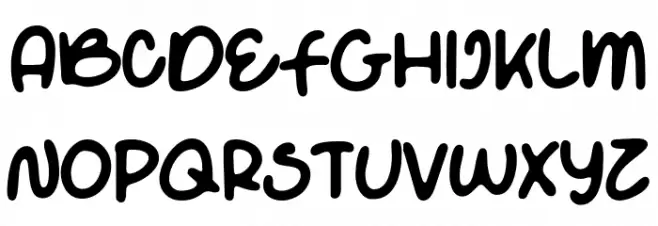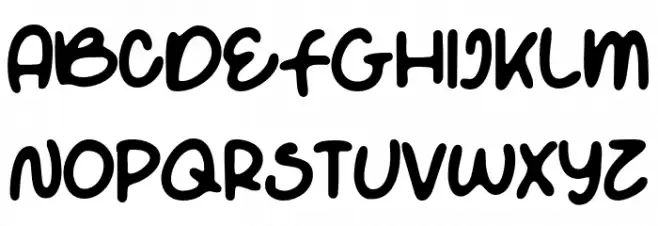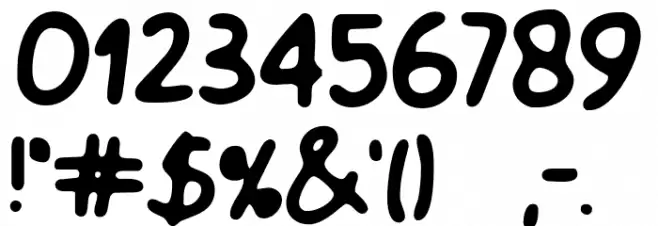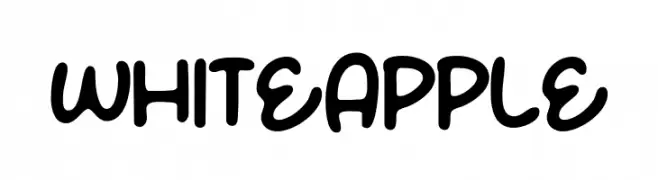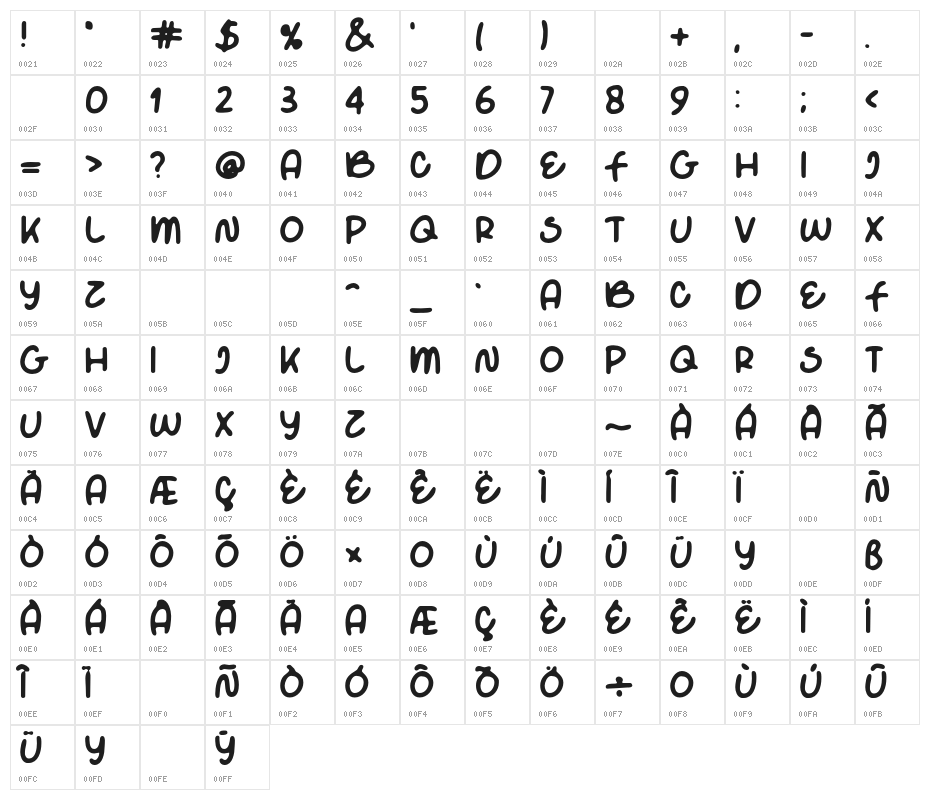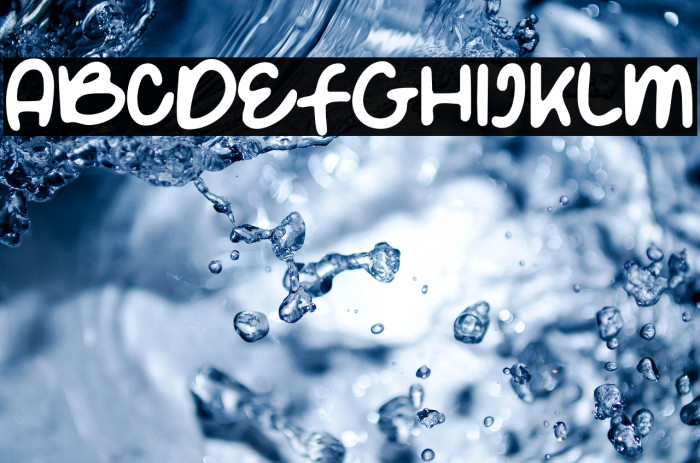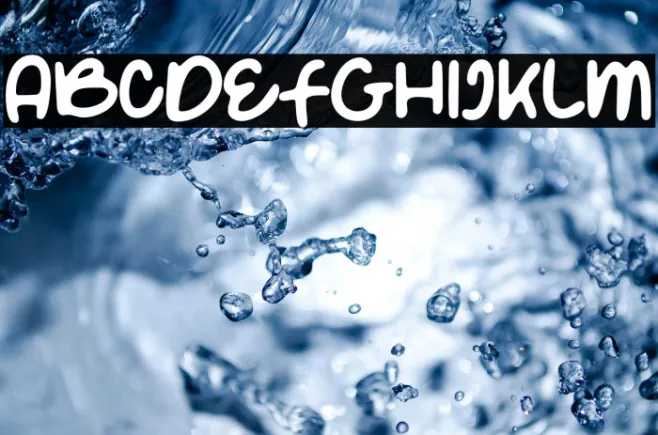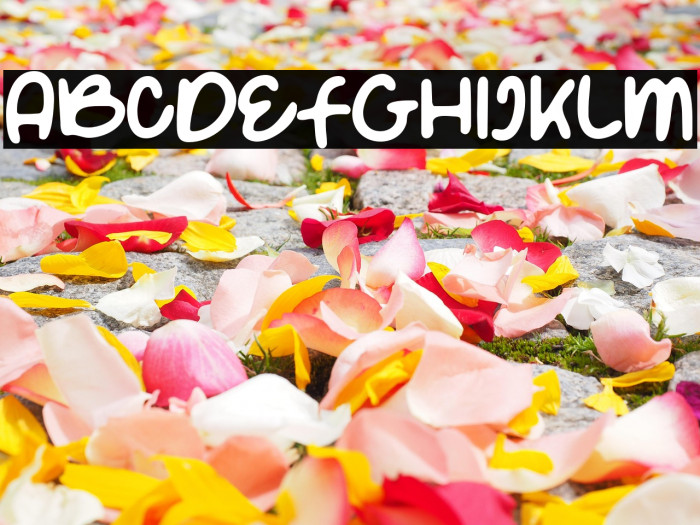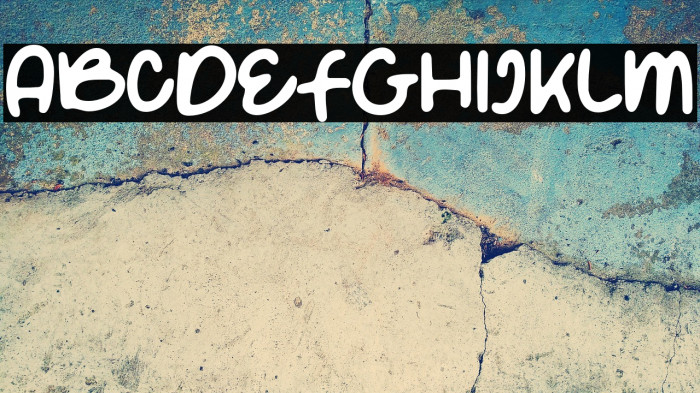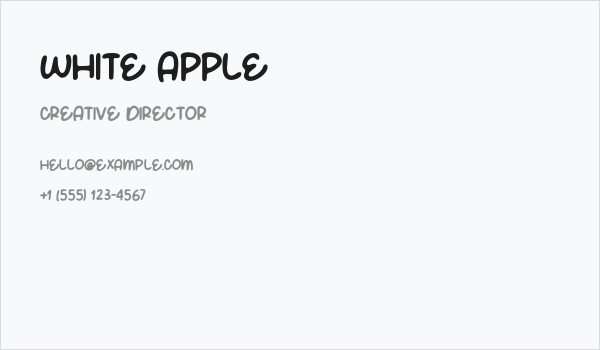
White Apple Font
White Apple Description
A playful, rounded font with a handwritten style, featuring bold and smooth curves.
Playful, rounded handwritten font.
- Font: White Apple
- Proposed Projects: Children's books, casual branding, playful posters.
- Category: Handwritten
- Overall Style: Playful
White Apple UPPERCASE
White Apple LOWERCASE
White Apple OTHER CHARS